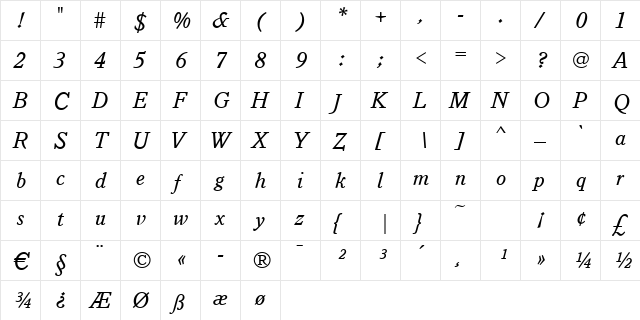
Istria-Old-Style Italic
Design Context for Istria-Old-Style Typeface
Istria-Old-Style offers clean, dependable letterforms without strong stylistic allegiance, making it a practical choice for designers who need flexibility. Its italic angle brings a sense of urgency and motion to the letterforms.
Pro Tip: Use Istria-Old-Style for emphasis, pull quotes, and subheadings where its slanted energy can add rhythm to the layout.